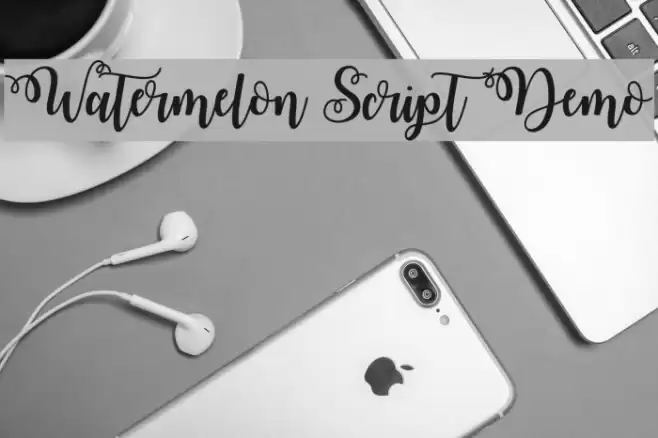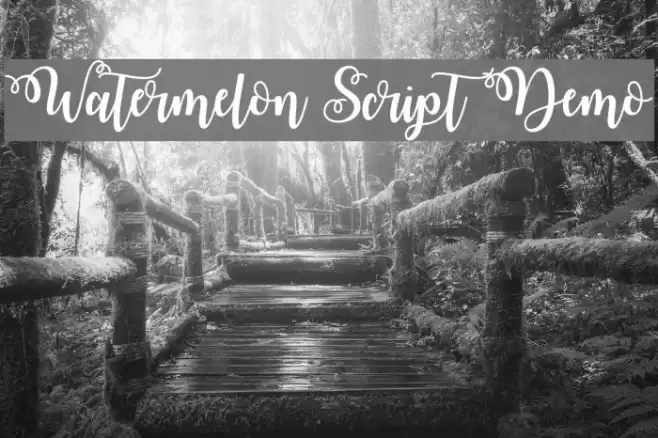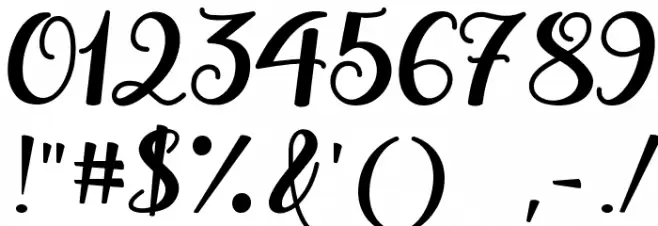
Watermelon Script Demo Font
Watermelon Script Demo Description
This font features a playful and whimsical script style with elegant, flowing lines and a hand-drawn appearance. The uppercase letters are adorned with charming decorative swirls, adding a touch of fanciful flair. The lowercase letters maintain a smooth and consistent flow, making them ideal for creating a friendly and inviting atmosphere. The numerals and special characters are crafted with the same attention to detail, ensuring a cohesive look across all elements. The overall design is both stylish and approachable, making it suitable for a variety of creative projects.
A playful and whimsical script font with decorative swirls and a hand-drawn feel from Uncategorized fonts.